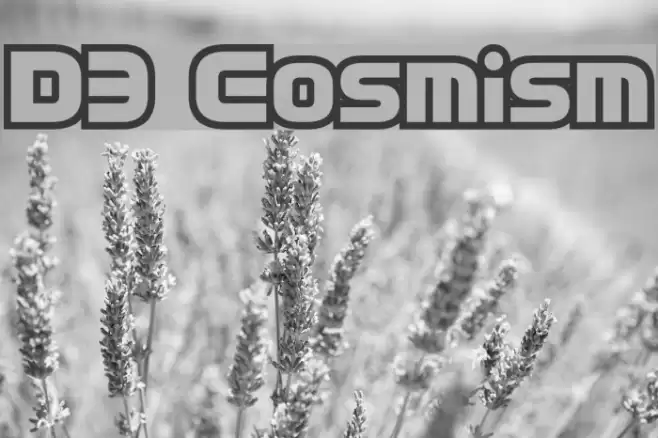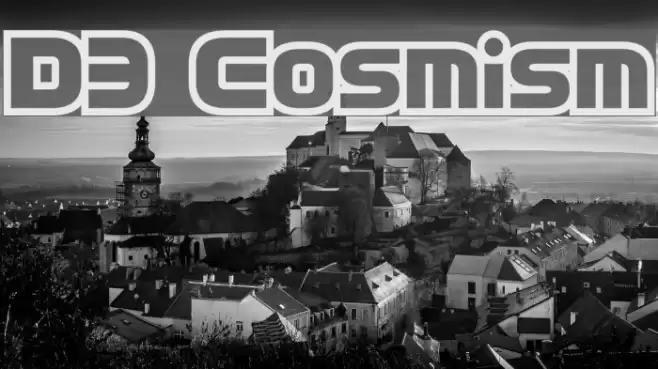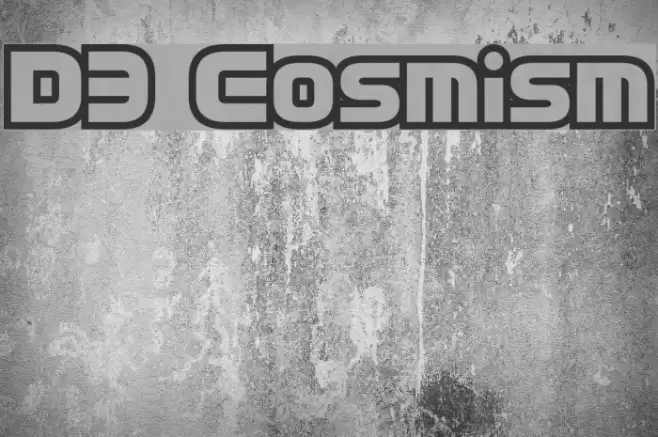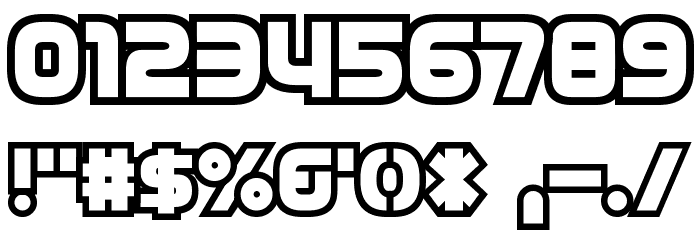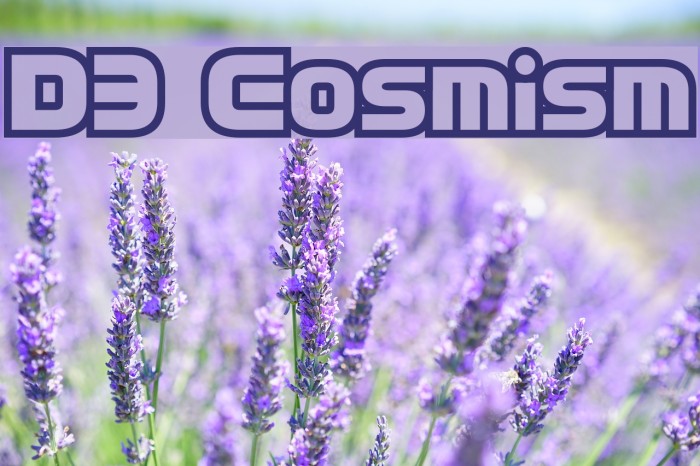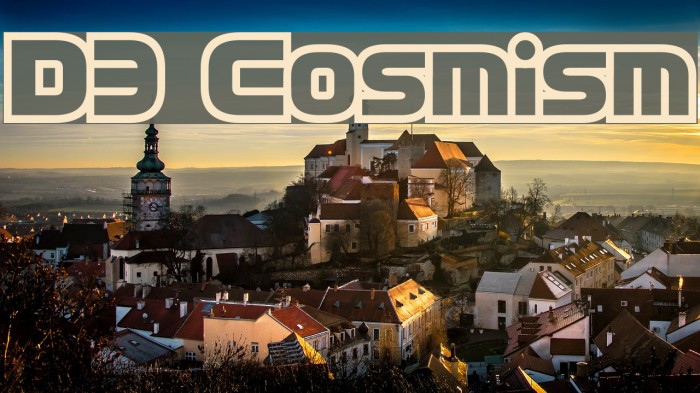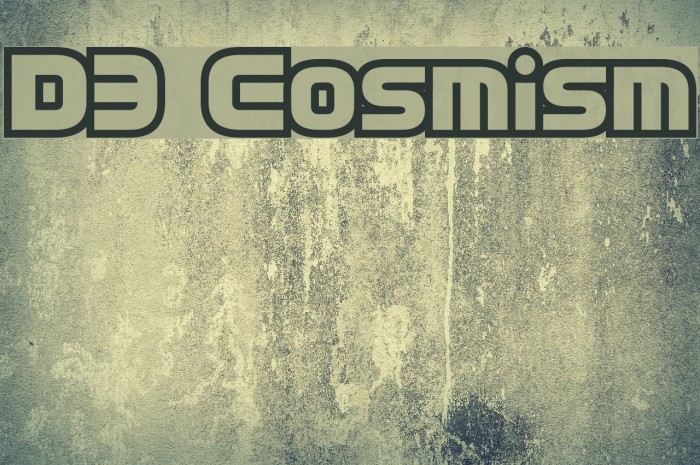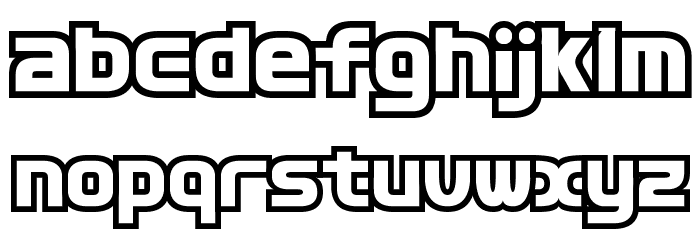
D3 Cosmism Font
D3 Cosmism Description
This font features a bold, futuristic design with geometric shapes and clean lines. The characters are outlined, giving them a hollow appearance that adds depth and dimension. The uppercase and lowercase letters maintain a consistent style, with rounded edges and a uniform thickness. The numerals and special characters follow the same design principles, ensuring a cohesive look across all elements. The font's unique style makes it stand out, with a modern and tech-inspired aesthetic that is both eye-catching and versatile.
A bold, futuristic font with geometric outlines and a tech-inspired aesthetic from Uncategorized fonts.
- Proposed Projects: Ideal for technology branding, sci-fi themed projects, video game titles, and modern posters.